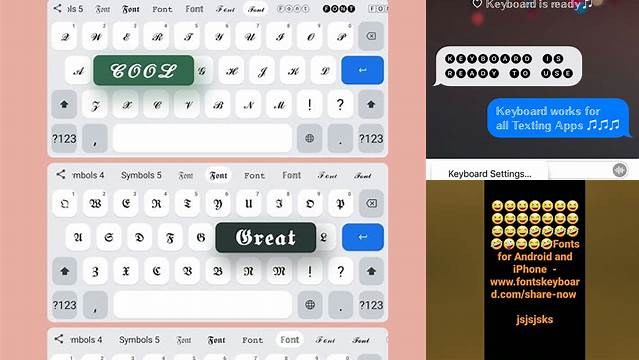
Cool Fonts: Keyboard Sharing For Android & IPhone
Hey guys! Ever wanted to spice up your texts with some cool fonts on your Android or iPhone? Well, you're in luck! These days, it's super easy to find and use awesome fonts right from your keyboard. This article is your ultimate guide to making your messages stand out with unique fonts and sharing them effortlessly. So, let’s dive in and get those creative juices flowing with amazing fonts that express your style! We’ll cover everything from finding the right app to actually using these fantastic fonts in your everyday conversations. By the end of this, you'll be a font master, ready to impress all your friends with your stylish texts. The world of typography is at your fingertips, and trust me, it’s more exciting than you think. Let’s get started!
1. Understanding Font Compatibility on Android and iPhone
Alright, first things first: understanding how fonts work on Android and iPhone. Both operating systems have their own ways of handling fonts, and it’s essential to know this to avoid any hiccups. Android is generally more open, allowing you to install fonts more freely, whereas iPhones are a bit more restrictive. However, with the right apps, you can still get creative on both platforms. When choosing fonts, make sure they are compatible with both systems if you plan to share them with friends who use different devices. This ensures that everyone sees the fonts as intended. Also, keep an eye on the file formats – .TTF and .OTF are common and usually work well. Knowing the basics will save you a lot of headaches down the road. Plus, understanding these nuances makes you a more informed user, ready to tackle any font-related challenge!
2. Top Font Keyboard Apps for Android
Android users, you've got a ton of options when it comes to font keyboard apps. Some of the top contenders include FancyKey, Fonts Keyboard, and Kika Keyboard. These apps offer a wide variety of fonts to choose from, and they're usually pretty easy to set up. Just download the app from the Google Play Store, enable it in your keyboard settings, and you're good to go. Each app has its own unique features, like customizable themes or additional emoji. So, take some time to explore and find one that fits your style. FancyKey, for example, is known for its sleek interface and extensive font library. Fonts Keyboard, on the other hand, keeps things simple and user-friendly. And Kika Keyboard is a great all-rounder with fonts, GIFs, and stickers. Give them a try and see which one you like best!
3. Best Font Keyboard Apps for iPhone
iPhone users, don't feel left out! There are some fantastic font keyboard apps available for you too. Popular choices include Fonts, Fontsy, and iFont. These apps allow you to use custom fonts in your messages, social media posts, and more. The installation process is similar to Android: download the app from the App Store, enable it in your settings, and start typing in style. Keep in mind that some apps may require a subscription for full access to all fonts, so read the fine print before committing. Fonts is a top pick for its vast selection of fonts and easy-to-use interface. Fontsy is another great option, offering a range of stylish fonts and customization options. And iFont is perfect if you want to manage and install fonts directly on your iPhone. Happy typing, iPhone users!
4. Installing and Setting Up Font Keyboards
5. Exploring Different Font Styles
Now for the fun part: exploring different font styles! The possibilities are endless. Whether you're into elegant scripts, bold sans-serifs, or quirky handwritten styles, there's a font out there for everyone. Most font keyboard apps offer a preview of each font, so you can see what it looks like before you start typing. Experiment with different fonts to find the perfect one for each occasion. Use a playful font for casual chats with friends, or a sophisticated font for professional emails. Don't be afraid to mix and match fonts to create unique effects. And remember, the right font can completely change the tone of your message. So, have fun and let your creativity shine!
6. Sharing Fonts Across Platforms
Sharing fonts across platforms can be a bit tricky, but it’s totally doable. The key is to ensure that the recipient can actually see the font you're using. One way to do this is by using apps that support font sharing, like those mentioned earlier. When you type a message with a custom font, the app converts it into an image or a special code that the recipient's app can recognize. This way, they'll see the font as intended, even if they don't have the same font installed on their device. Another option is to take a screenshot of your text and send it as an image. While this isn’t ideal for long messages, it works great for short, stylish snippets. Just remember to consider your audience and choose a method that works best for them. Communication is key, guys!
7. Customizing Your Keyboard with Unique Fonts
Customizing your keyboard with unique fonts is a fantastic way to express your personality. Most font keyboard apps offer customization options, allowing you to tweak the appearance of your keyboard to match your style. You can change the background color, add a custom image, or even adjust the key size and spacing. Experiment with different themes and layouts to create a keyboard that's truly your own. Some apps even let you create your own fonts, giving you complete control over your typing experience. Imagine designing a font that perfectly reflects your brand or personal aesthetic! It’s all about making your keyboard a reflection of you. So, go wild and create something amazing!
8. Creating Stylish Social Media Posts
Fonts aren't just for texting; they can also elevate your social media game. Use custom fonts to create eye-catching captions, engaging stories, and memorable bios. A stylish font can help your posts stand out from the crowd and attract more attention. Whether you're promoting your business or just sharing your thoughts, the right font can make a big difference. Use bold fonts for headlines, elegant fonts for quotes, and playful fonts for casual updates. Just be sure to use fonts that are easy to read and appropriate for your audience. And don't overdo it – a little font flair goes a long way. Keep it classy, keep it stylish, and watch your social media presence soar!
9. Using Fonts in Email Communication
While you might think email is too formal for fancy fonts, think again! Adding a touch of personality to your emails can make them more engaging and memorable. Use custom fonts for your signature, headings, or even short quotes. Just be mindful of your audience and the context of your message. A playful font might not be appropriate for a serious business email, but it could be perfect for a casual message to a friend. Also, keep in mind that not all email clients support custom fonts, so your recipient might not see the font as intended. To avoid this, you can use fonts that are widely supported or embed the font in your email as an image. It’s all about finding the right balance between style and professionalism. And remember, clarity is always key!
10. Troubleshooting Common Font Keyboard Issues
Okay, let’s talk troubleshooting. Sometimes, things don’t go as planned, and you might encounter issues with your font keyboard. Here are some common problems and how to fix them. If your keyboard isn't showing up, double-check that it's enabled in your device's settings. If the fonts aren't displaying correctly, try restarting the app or your device. If you're experiencing lag or performance issues, try clearing the app's cache or uninstalling and reinstalling it. And if you're having trouble sharing fonts across platforms, make sure you're using an app that supports font sharing. If all else fails, consult the app's FAQ or contact customer support. Don't give up – with a little troubleshooting, you can usually resolve any issues and get back to typing in style!
11. Exploring Font Pairing Strategies
Font pairing is the art of combining two or more fonts in a way that looks harmonious and visually appealing. It's a skill that can elevate your designs and make your text more engaging. The key to successful font pairing is to choose fonts that complement each other, rather than compete. A good rule of thumb is to pair a display font (used for headings or titles) with a more simple and readable font (used for body text). For example, you could pair a bold sans-serif font with a classic serif font, or a script font with a clean sans-serif font. Experiment with different combinations to see what works best for your project. And remember, less is often more. Stick to two or three fonts at most to avoid overwhelming your audience. Happy pairing!
12. Maintaining a Consistent Brand Image with Fonts
If you're using fonts for business purposes, it's essential to maintain a consistent brand image. Choose fonts that reflect your brand's personality and use them consistently across all your marketing materials. This includes your website, social media profiles, email templates, and print materials. Consistency helps to reinforce your brand identity and make your brand more recognizable. Create a font style guide that outlines which fonts to use for different purposes. This will ensure that everyone on your team is on the same page and that your brand's visual identity remains consistent. Remember, your fonts are an important part of your brand's overall look and feel. So, choose them wisely and use them consistently!
13. Understanding Font Licensing and Usage Rights
Before you start using fonts in your projects, it's important to understand font licensing and usage rights. Most fonts are protected by copyright, and you need a license to use them legally. Some fonts are free for personal use, but require a commercial license for business purposes. Other fonts are only available for purchase. Read the font license carefully to understand what you're allowed to do with the font. Can you use it for commercial projects? Can you embed it in a website or app? Can you modify it? If you're unsure, contact the font designer or foundry for clarification. Using fonts without a proper license can lead to legal trouble, so it's always best to err on the side of caution.
14. The Psychology of Fonts: Choosing the Right Font for Your Message
Did you know that fonts can evoke different emotions and associations? The psychology of fonts is a fascinating field that explores how fonts can influence our perception of a message. For example, serif fonts are often associated with tradition, authority, and trustworthiness. Sans-serif fonts, on the other hand, are seen as modern, clean, and approachable. Script fonts can convey elegance, creativity, and romance. And decorative fonts can add a touch of whimsy or playfulness. When choosing a font for your message, consider the emotions you want to evoke and the message you want to convey. The right font can help you connect with your audience on a deeper level and make your message more impactful.
15. Exploring Calligraphy Fonts for Special Occasions
For special occasions like weddings, birthdays, or anniversaries, calligraphy fonts can add a touch of elegance and sophistication. Calligraphy fonts mimic the look of hand-lettered calligraphy and can create a beautiful and personal touch. Use calligraphy fonts for invitations, thank-you notes, or even social media posts. Just be sure to use them sparingly and pair them with a more readable font for body text. And remember, calligraphy fonts can be more difficult to read than other fonts, so choose a font that is clear and legible. With the right calligraphy font, you can make your special occasion even more memorable.
16. Monospace Fonts: When and How to Use Them
Monospace fonts are fonts in which each character occupies the same amount of horizontal space. They're often used in coding, programming, and other technical applications. But monospace fonts can also be used for creative purposes. They can create a retro or typewriter-like effect and can add a unique touch to your designs. When using monospace fonts, be sure to choose a font that is easy to read and appropriate for your audience. And use them sparingly, as they can be tiring to read in large blocks of text. With the right monospace font, you can add a touch of technical flair to your projects.
17. Variable Fonts: The Future of Typography
Variable fonts are a new type of font that allows for greater flexibility and customization. Unlike traditional fonts, which have a fixed set of styles, variable fonts allow you to adjust various parameters, such as weight, width, and slant. This means you can create a wide range of styles from a single font file, saving space and improving performance. Variable fonts are the future of typography and are already being used by many designers and developers. If you're looking for the ultimate in font customization, variable fonts are the way to go.
18. Utilizing Google Fonts on Mobile Devices
Google Fonts is a vast library of free and open-source fonts that you can use in your projects. Many font keyboard apps integrate with Google Fonts, allowing you to access thousands of fonts right from your mobile device. To use Google Fonts on your mobile device, simply choose a font keyboard app that supports Google Fonts and browse the library to find the perfect font for your needs. You can also download Google Fonts fonts to your device and install them manually, but this is usually more complicated. With Google Fonts, you have access to a world of typographic possibilities right at your fingertips.
19. Creating Animated Text with Different Fonts
Animated text can be a great way to grab attention and add visual interest to your designs. And with the right fonts, you can create even more engaging animations. Use bold fonts for impact, script fonts for elegance, and playful fonts for fun. Experiment with different animation styles, such as fade-in, slide-in, or bounce, to create unique effects. There are many apps and tools that allow you to create animated text on your mobile device. So, get creative and start animating your text with different fonts today!
20. The Impact of Font Size and Readability on User Experience
Font size and readability are crucial factors in user experience. If your fonts are too small or difficult to read, users will struggle to consume your content. Choose fonts that are clear and legible, even at small sizes. And be sure to use appropriate font sizes for different devices and screen sizes. A good rule of thumb is to use larger fonts on mobile devices, as they have smaller screens. Also, consider the contrast between the font color and the background color. If the contrast is too low, the text will be difficult to read. By paying attention to font size and readability, you can improve the user experience of your website or app and make your content more accessible.
21. Exploring Handwriting Fonts for a Personal Touch
Handwriting fonts can add a personal and authentic touch to your designs. They mimic the look of handwritten text and can create a warm and inviting feel. Use handwriting fonts for invitations, cards, or even social media posts. Just be sure to choose a handwriting font that is easy to read and appropriate for your audience. And use them sparingly, as they can be tiring to read in large blocks of text. With the right handwriting font, you can add a personal touch to your projects.
22. Using Decorative Fonts for Eye-Catching Designs
Decorative fonts are designed to be visually striking and attention-grabbing. They often feature intricate details, unusual shapes, or bold colors. Use decorative fonts for headlines, titles, or logos. Just be sure to use them sparingly, as they can be overwhelming if overused. And choose a decorative font that is appropriate for your brand and your message. With the right decorative font, you can create eye-catching designs that stand out from the crowd.
23. The Importance of Kerning and Tracking in Typography
Kerning and tracking are two important aspects of typography that affect the spacing between letters. Kerning refers to the adjustment of space between individual letters to improve readability and visual appeal. Tracking refers to the uniform adjustment of space between all letters in a block of text. Proper kerning and tracking can make a big difference in the overall look and feel of your typography. Pay attention to kerning and tracking when choosing fonts and designing your layouts.
24. Font Accessibility: Ensuring Your Fonts are Readable for Everyone
Font accessibility is the practice of choosing fonts that are readable and accessible to everyone, including people with disabilities. This means choosing fonts that are large enough, have sufficient contrast, and are easy to read for people with visual impairments. It also means avoiding fonts that are too decorative or stylized, as they can be difficult to read for some people. By prioritizing font accessibility, you can make your content more inclusive and accessible to a wider audience.
25. Exploring Retro and Vintage Fonts for Nostalgic Designs
Retro and vintage fonts can evoke a sense of nostalgia and bring a touch of the past to your designs. They often feature classic typefaces, vintage textures, and retro color palettes. Use retro and vintage fonts for posters, logos, or even social media posts. Just be sure to choose a retro or vintage font that is appropriate for your brand and your message. With the right retro or vintage font, you can create designs that transport your audience back in time.
26. Font Weight and Its Impact on Visual Hierarchy
Font weight refers to the thickness of a font. Fonts come in a variety of weights, such as light, regular, bold, and black. Font weight can be used to create visual hierarchy in your designs. Use heavier fonts for headlines and titles, and lighter fonts for body text. This will help to guide the reader's eye and make your content more organized and readable. Experiment with different font weights to see what works best for your designs.
27. Mixing Serif and Sans-Serif Fonts Effectively
Mixing serif and sans-serif fonts can create a visually interesting and dynamic effect. However, it's important to do it effectively. A good rule of thumb is to pair a serif font with a sans-serif font that has a similar x-height and stroke width. This will help to create a harmonious and balanced look. Also, consider the personality of the fonts. Choose fonts that complement each other and reflect the tone of your message. With the right combination of serif and sans-serif fonts, you can create designs that are both visually appealing and easy to read.
28. Font Management Tools for Android and iPhone
Managing your fonts can be a challenge, especially if you have a large collection. Fortunately, there are many font management tools available for Android and iPhone. These tools allow you to organize your fonts, preview them, and install them on your device. Some popular font management tools include iFont, Fontcase, and Typeface. With the right font management tool, you can keep your font collection organized and easily accessible.
29. Creating a Font Style Guide for Personal Use
Even if you're not a professional designer, creating a font style guide for personal use can be a helpful exercise. A font style guide outlines which fonts you use for different purposes, such as headings, body text, and captions. It also includes information about font size, font weight, and font color. By creating a font style guide, you can ensure that your typography is consistent and visually appealing across all your projects.
30. Future Trends in Mobile Typography
The field of mobile typography is constantly evolving. Some future trends to watch out for include variable fonts, animated fonts, and more personalized font experiences. As mobile devices become more powerful and screens become more high-resolution, we can expect to see even more innovative and creative uses of typography on mobile devices. Stay tuned for the latest developments in mobile typography!
So there you have it! A comprehensive guide to using fonts on your Android and iPhone devices. From understanding compatibility to exploring different styles and sharing them with friends, you're now equipped to make your messages truly stand out. Remember to experiment, have fun, and let your creativity shine through. Happy typing, everyone!